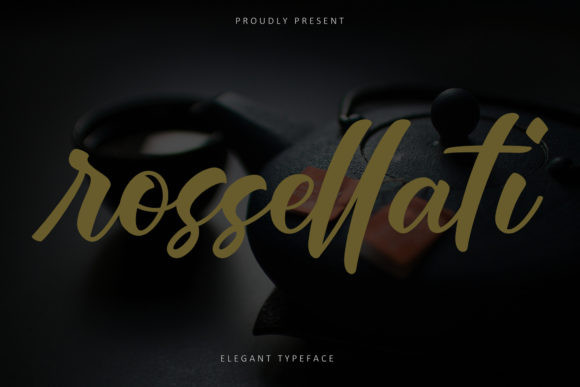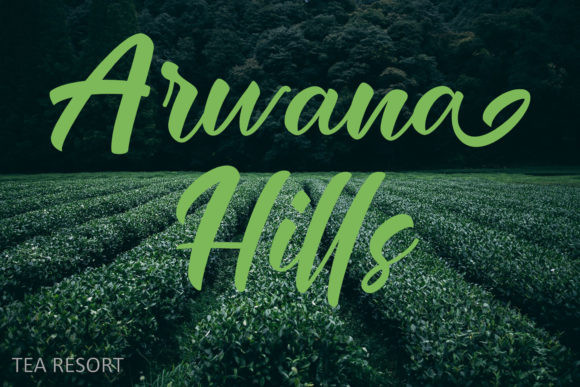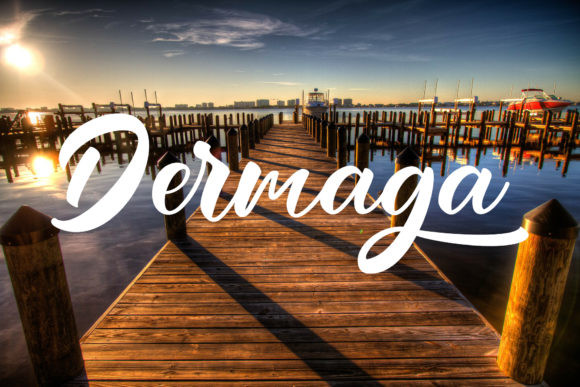
Rossellati Font
Rossellati FontRossellati is a classy script font. Simple and easy to use, this font will be very beautiful if you mix it with your various craft designs.